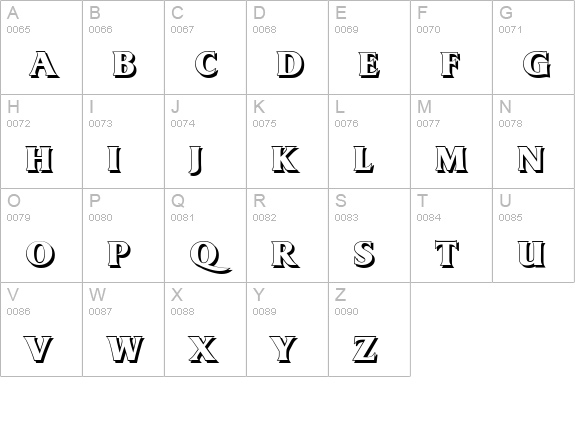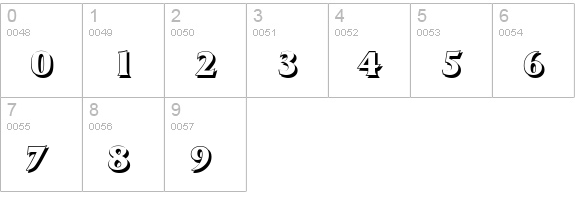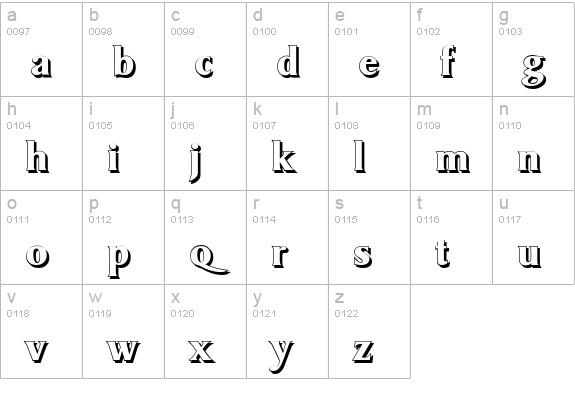
SydneyShadow-Bold is a strong, high-contrast variant in the SydneyShadow typeface family \xE2\x80\x94 well suited to headlines, attention-grabbing titles, and strong calls-to-action.
SydneyShadow-Bold is a striking and bold display font that demands attention with its sharp edges and strong presence. This font exudes a sense of modernity and sophistication, making it perfect for headlines, titles, branding, and other design projects that require a touch of elegance. Its sleek and stylish appearance adds a contemporary flair to any creative endeavor. What sets SydneyShadow-Bold apart is not just its stunning design, but also the fact that it is available for free download at FontsMarket.com. This means that you can easily access this impressive font without any cost, making it a valuable addition to your typography collection. Whether you're a seasoned designer or a novice enthusiast, SydneyShadow-Bold offers a versatile and eye-catching option that is sure to elevate your projects to the next level. Download this font today and unleash your creativity with this exceptional typeface.